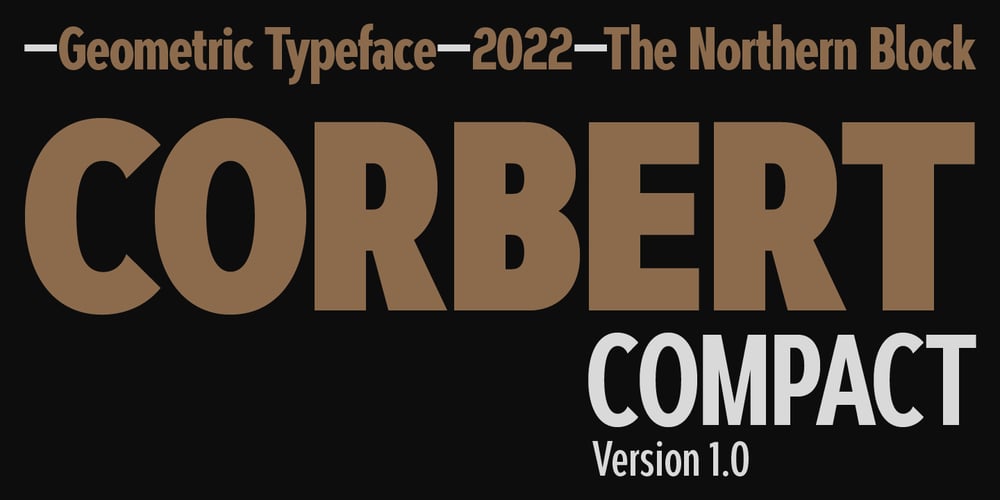
Corbert Compact Font Family was designed by Jonathan Hill and published by The Northern Block. Corbert Compact contains 18 styles and family package options. A compact geometric sans serif typeface influenced by Bauhaus and the early modernist era. Precise shapes are optically adjusted to create a clear, natural typeface with excellent legibility across various applications. Corbert compact is part of the popular Corbert type system; other widths include Normal, Condensed and Wide.Details include over 590 characters; OpenType features consist of five variations of numerals, including inferiors, superiors, fractions, alternative lowercase a, e and g, and language support covering Western, South, and Central Europe.